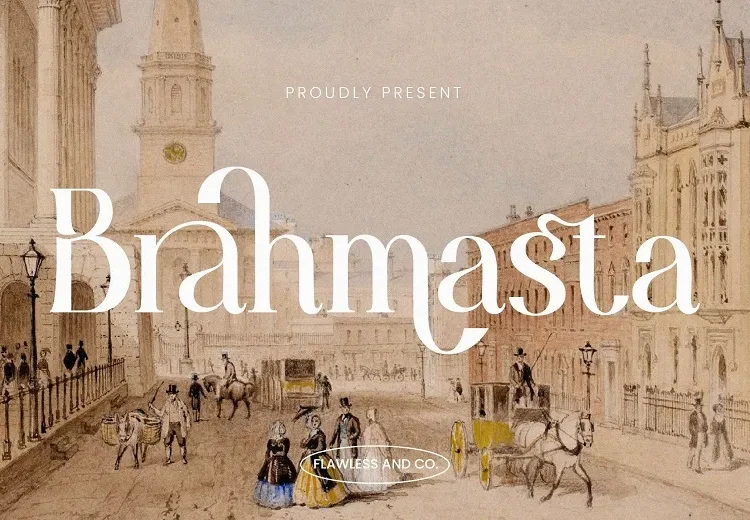
Brahmasta Font
Brahmasta is a sophisticated and stylish serif font known for its smooth curves and beautifully crafted characters. Featuring elegant stylistic sets, this font brings a luxurious and refined feel to any design project. Whether you’re creating social media posts, branding materials, or merchandise, Brahmasta font enhances the visual appeal with its classy and elegant design, making it perfect for projects that require a touch of luxury.
The versatility of Brahmasta font allows it to be used across a variety of design applications. From posters and advertisements to personal projects like invitations and logos, this font adds a polished, high-end look to whatever you create. Its carefully designed characters and stylistic options ensure that it can adapt to both modern and classic design aesthetics.
With its luxurious feel and sophisticated style, Brahmasta font makes an excellent choice for designers aiming to produce high-quality, elegant designs. Whether for digital or print media, this font stands out by giving a professional, stylish edge to your work.